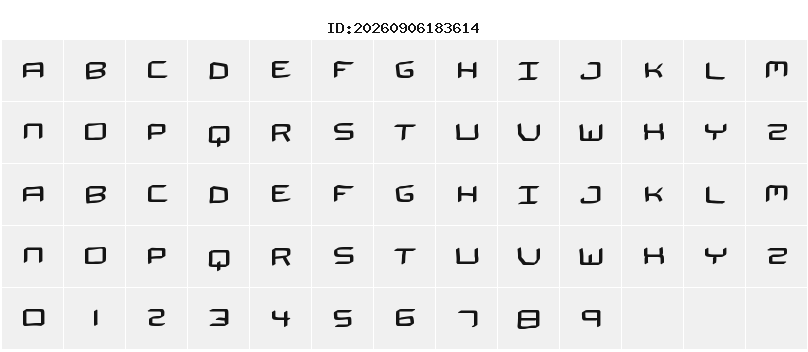
THE SPACEMAN Preview
• Font Name: THE SPACEMAN
• Full Font Name: THE SPACEMAN
About THE SPACEMAN.ttf
THE SPACEMAN.ttf is a modern, elegant sans-serif font designed for ultimate readability and visual harmony. Perfect for branding, headlines, web design, and print materials.